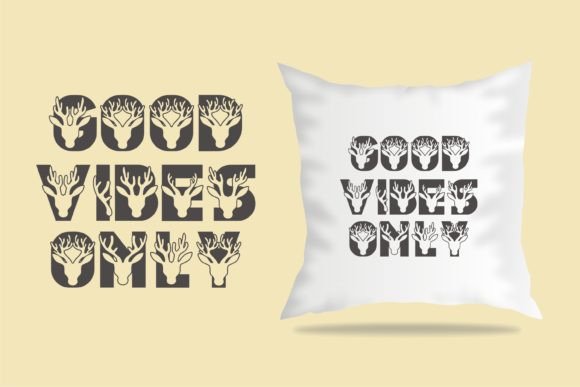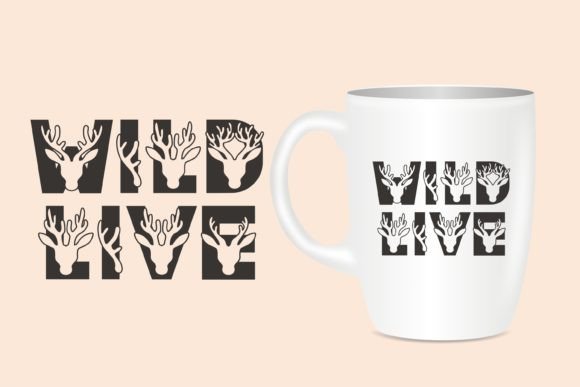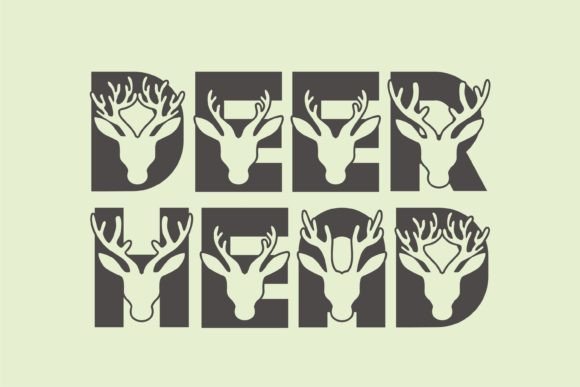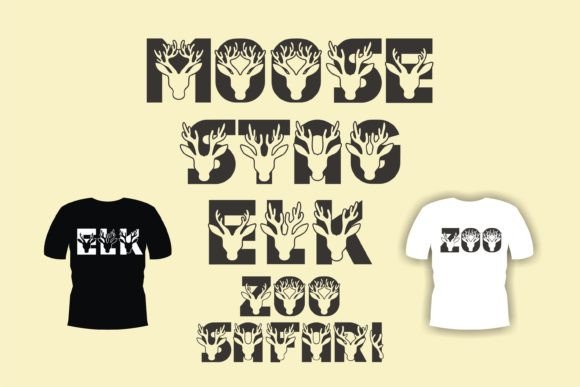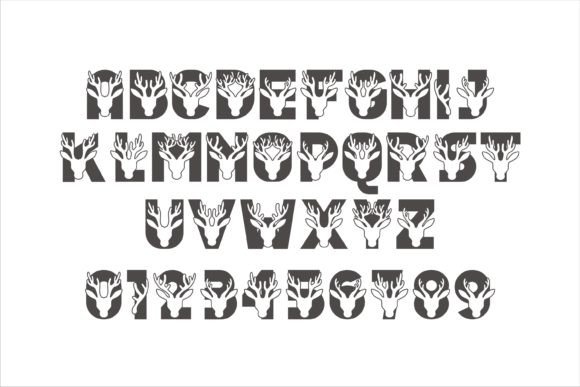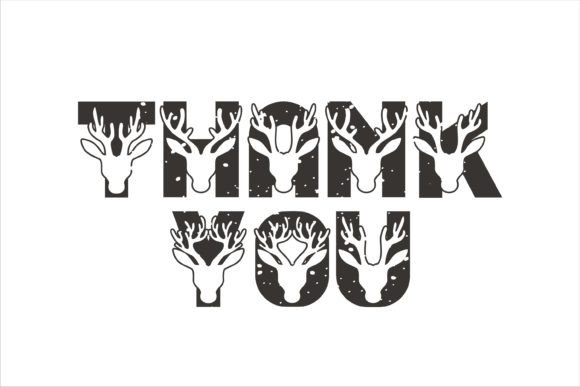
Introducing Deer Horn Font: A Stunning and Adventurous Decorative Font
Are you a designer or crafter looking for a unique and exciting font to add to your projects? Look no further than Deer Horn Font, a stunning and adventurous decorative font that’s perfect for children and nature-related projects. In this article, we’ll dive into the features and benefits of Deer Horn Font, and explore how you can use it to take your designs to the next level.
What is Deer Horn Font?
Deer Horn Font is a decorative font that’s inspired by the natural world. Its unique and intricate design features antler-like horns that add a touch of whimsy and adventure to any project. The font is highly versatile and can be used for a wide range of applications, from craft projects to digital designs.
Key Features of Deer Horn Font
- Unique and eye-catching design: Deer Horn Font features a one-of-a-kind design that’s sure to grab attention. Its antler-like horns add a touch of adventure and whimsy to any project.
- Suitable for children and nature-related projects: The font’s natural and outdoorsy feel makes it perfect for projects aimed at children or those that celebrate the natural world.
- Highly versatile: Deer Horn Font can be used for a wide range of applications, from craft projects to digital designs.
- Easily customizable: The font can be easily customized to fit your project’s specific needs, from changing the color to adjusting the size.
Using Deer Horn Font for Craft Projects
Deer Horn Font is perfect for crafters who love to create handmade projects. Here are some ideas for using the font on craft projects:
- T-shirts and hoodies: Add a touch of adventure to your apparel with Deer Horn Font. It’s perfect for kids’ clothing or outdoor-themed designs.
- Pillows and tote bags: Create unique and eye-catching home decor and accessories with Deer Horn Font.
- Mugs and water bottles: Add a touch of whimsy to your drinkware with Deer Horn Font.
- Wall art and signs: Create stunning wall art and signs with Deer Horn Font. It’s perfect for nurseries, kids’ rooms, or outdoor-themed decor.
Using Deer Horn Font for Digital Designs
Deer Horn Font is also perfect for digital designers who want to add a touch of adventure to their designs. Here are some ideas for using the font on digital projects:
- Social media graphics: Create eye-catching social media graphics with Deer Horn Font. It’s perfect for outdoor-themed or children’s content.
- Web design: Add a touch of whimsy to your website with Deer Horn Font. It’s perfect for outdoor-themed or children’s websites.
- Digital invitations and party decor: Create unique and eye-catching digital invitations and party decor with Deer Horn Font.
Tips for Using Deer Horn Font
Here are some tips for getting the most out of Deer Horn Font:
- Experiment with colors: Deer Horn Font looks great in a range of colors, from earthy tones to bright and bold colors.
- Play with sizes: The font can be used at a range of sizes, from small and delicate to large and statement-making.
- Combine with other fonts: Deer Horn Font pairs well with a range of other fonts, from serif to script fonts.
Deer Horn Font is a stunning and adventurous decorative font that’s perfect for children and nature-related projects. Its unique and eye-catching design makes it perfect for craft projects, digital designs, and more. With its highly versatile and easily customizable design, Deer Horn Font is a must-have for designers and crafters looking to add a touch of adventure to their projects.